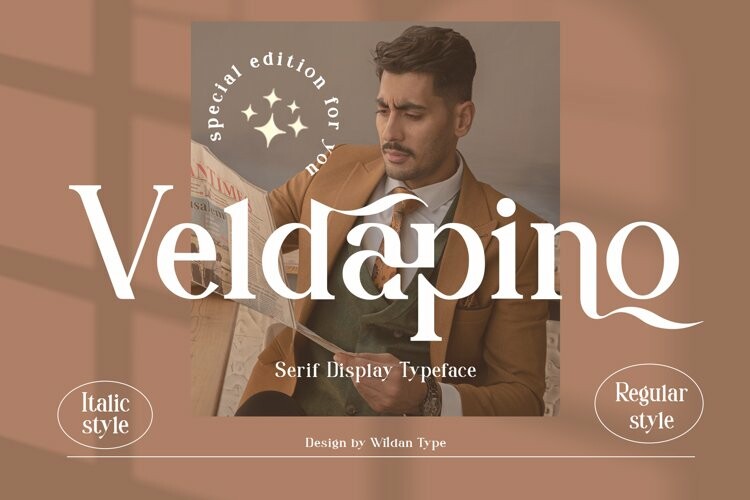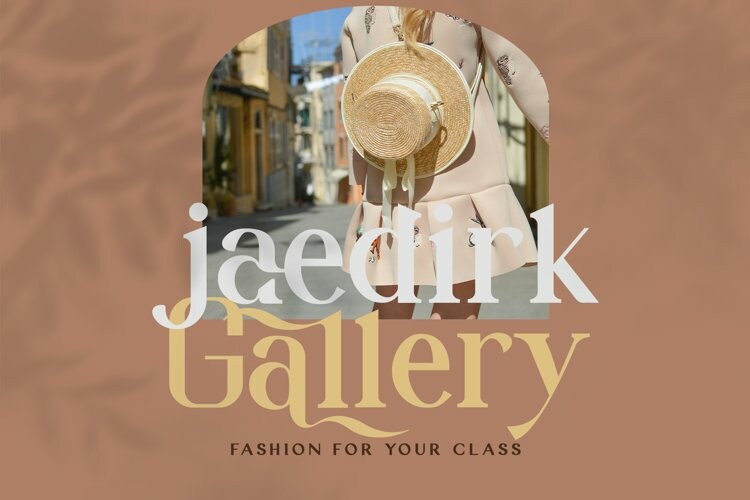
Veldapino Font
Veldapino FontVeldapino is display serif typeface. It is luxury and classy. You can get more elegant serif in alternate and ligature. With beautiful fill It’s great for logotypes, wedding invitations, romantic cards, labels, packaging, spelling of names and others. Add to your most creative ideas and watch how they bring them to life!